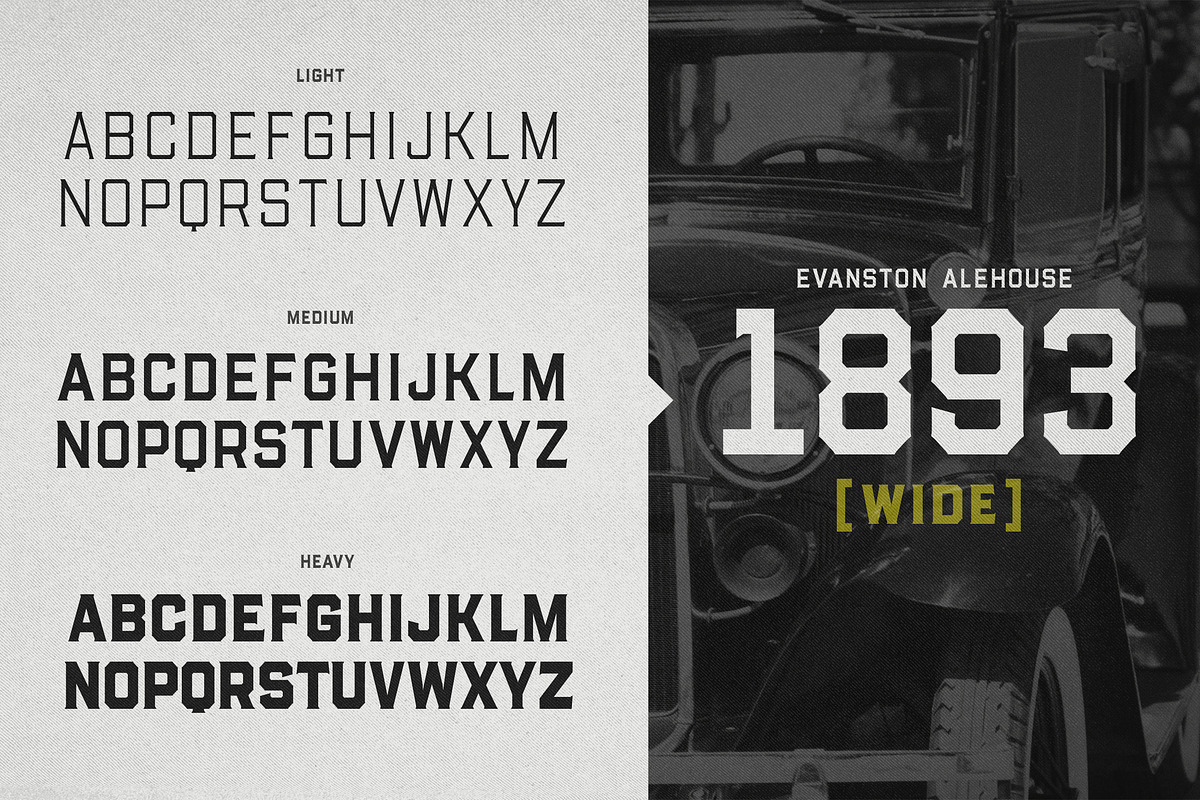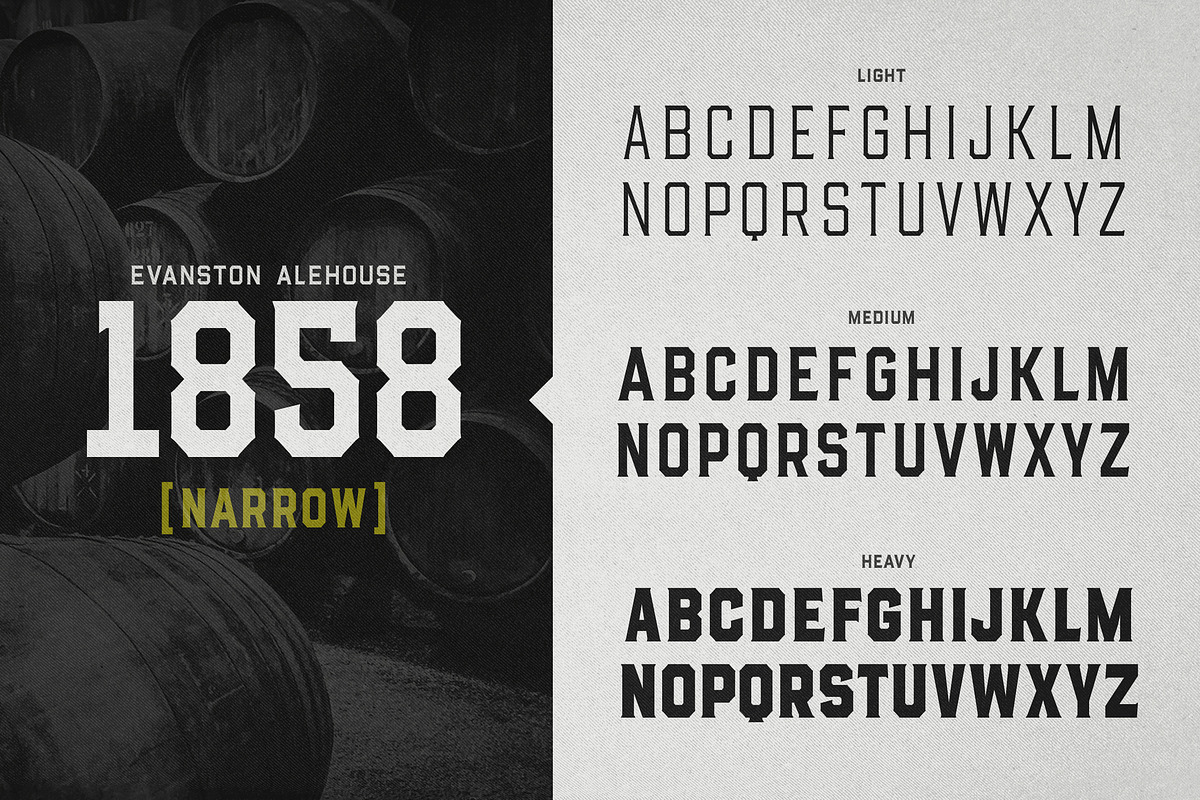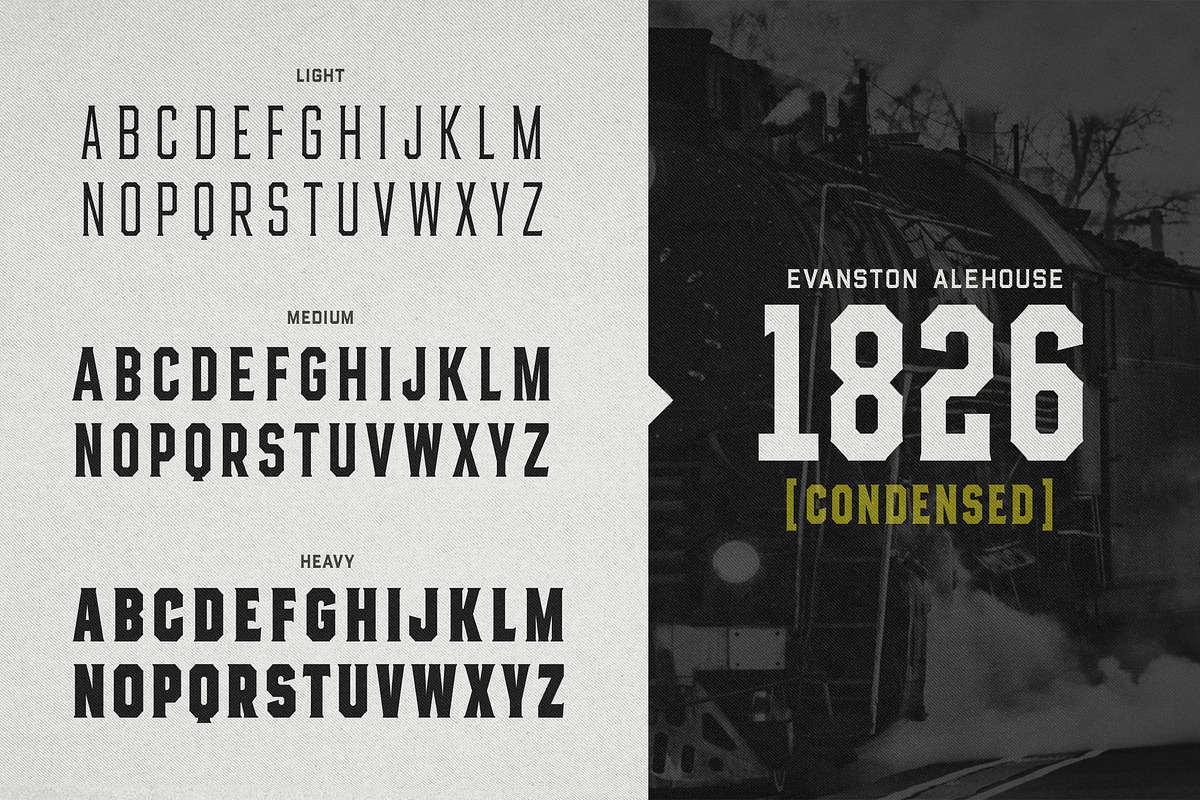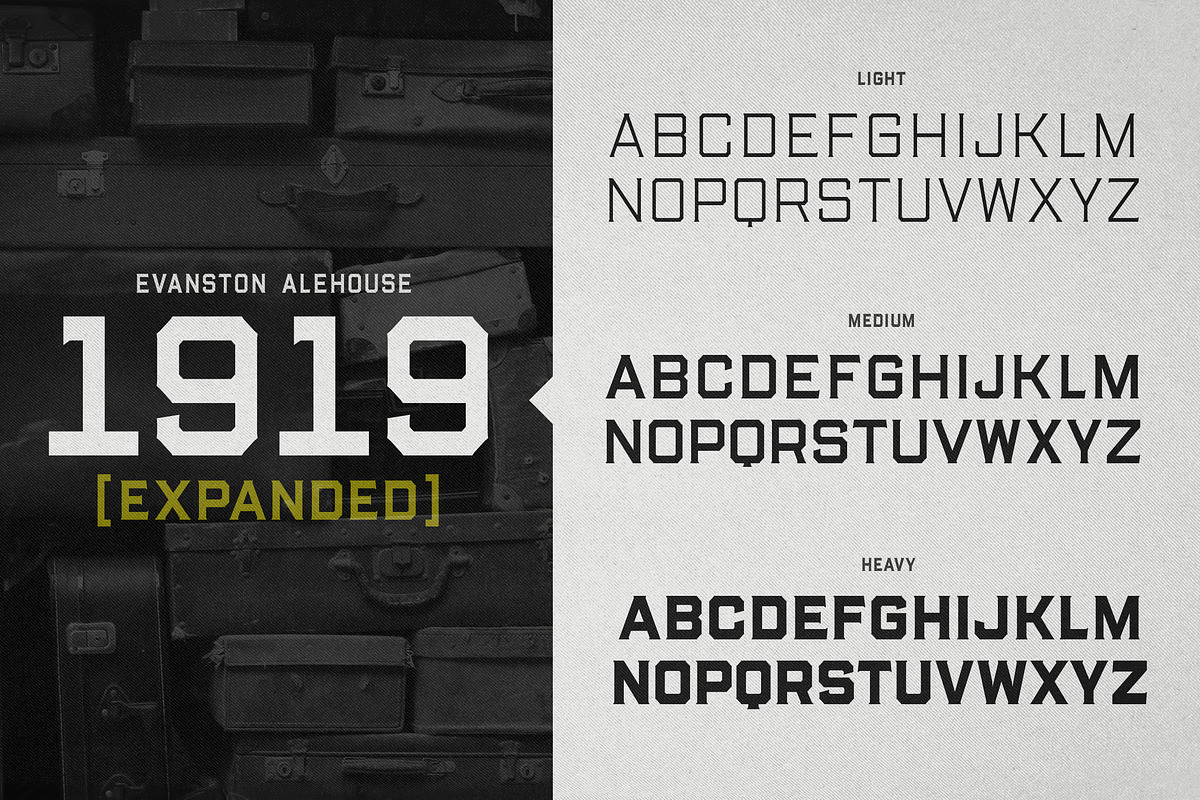
Evanston Alehouse Family
Evanston Alehouse is the first font in a larger collection of typefaces inspired by years leading up to the American prohibition. In the century that prefaced the ratification of the 18th amendment, saloons, taverns and alehouses boomed as the American working class enjoyed beer and discovered whiskey and gin. At the same time, the Temperance League was forming and gaining strength. By the turn of the century, these temperance societies were common in the culture of the country, with individual towns and states already on the move to abolish alcohol consumption. However, it was undeniable that by this time in history, America loved to drink. This font is inspired by the signage seen outside such drinking establishments.
Back to the modern era, Evanston Alehouse is a 25 font family that includes 3 weights, 4 widths and 3 heights. It has special features that add depth to the font, with discretionary ligatures and stylistic alternatives. It also includes a complimentary set of ornaments, including line breaks, frames, borders, and laurels.
Here’s a snapshot of what you get with Evanston Alehouse:
- 2 Styles/Postions: Upright and Oblique
- 3 Weights: Light, Medium and Heavy
- 4 Widths: 1826 (condensed), 1858 (narrow), 1893 (wide) and 1919 (expanded)
- 3 Heights: Capitals, lowercase and small caps
- 2 Alternatives: Discretionary Ligatures and Stylistic Alternatives
- 1 Ornament font with over 100 graphic extras